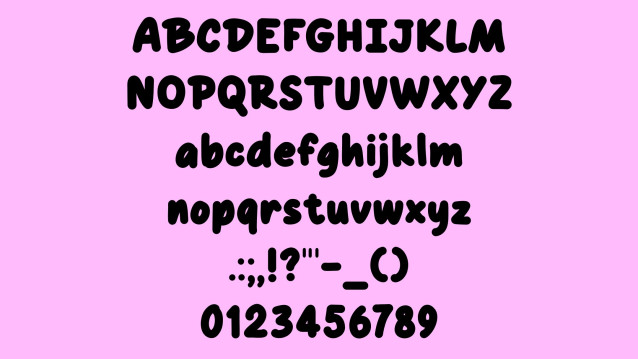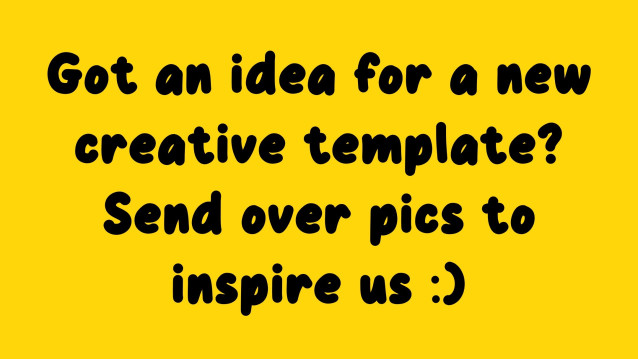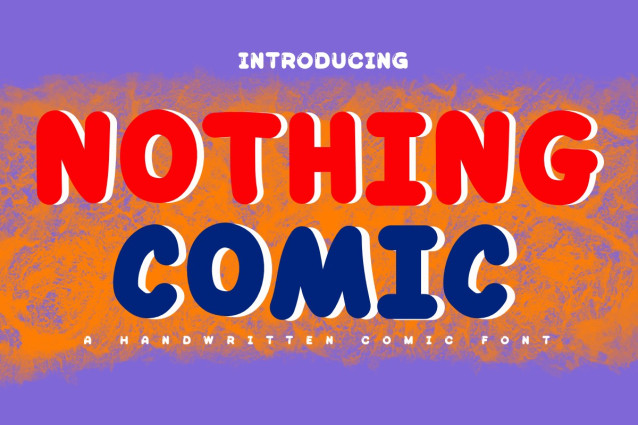
Nothing Comic Font
Nothing Comic Font –  is a simple and modern display font suitable for quotes, logos, headings, titles, and many more. Use it on any of your creative projects, and your designs will become outstanding!